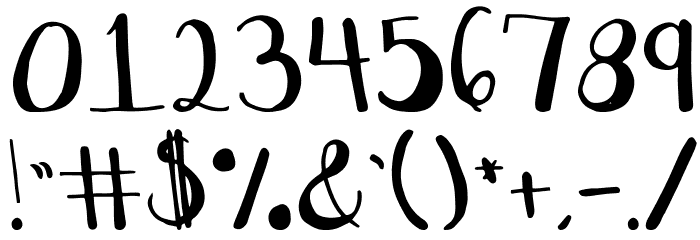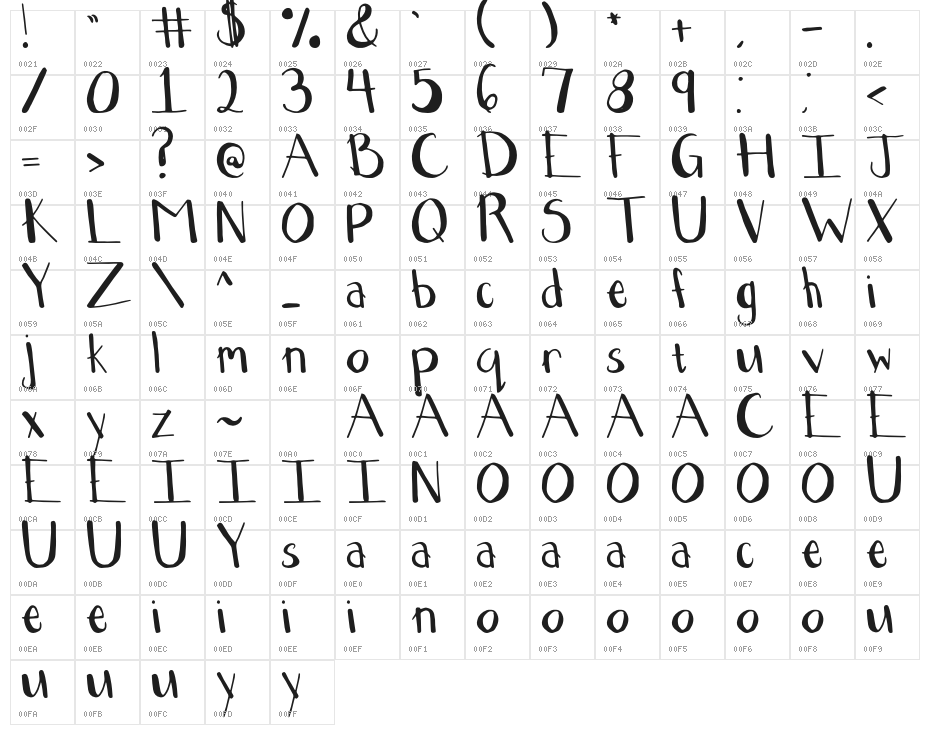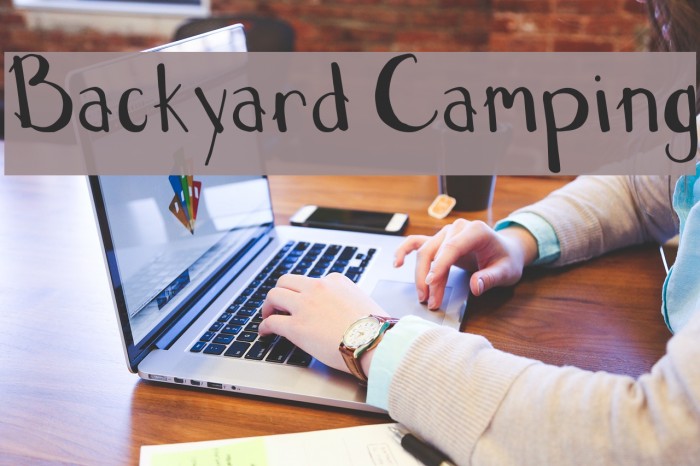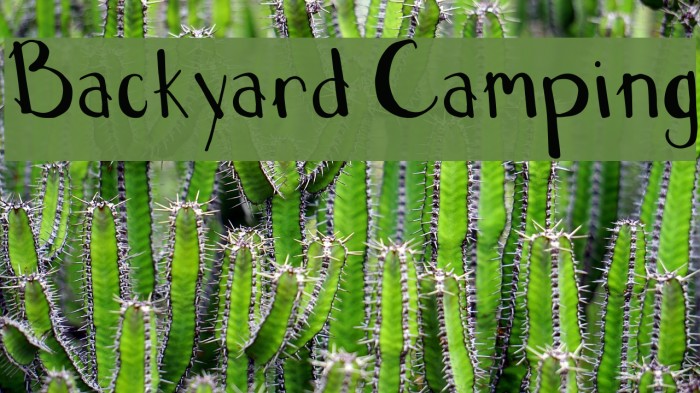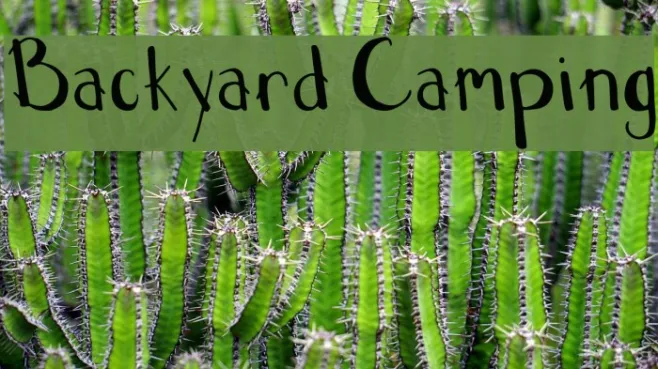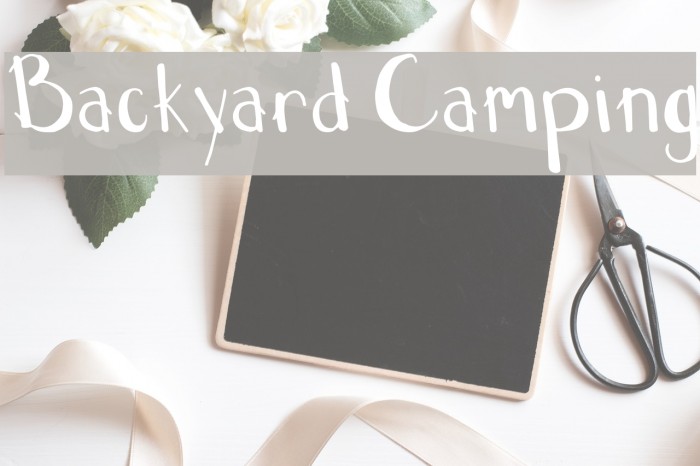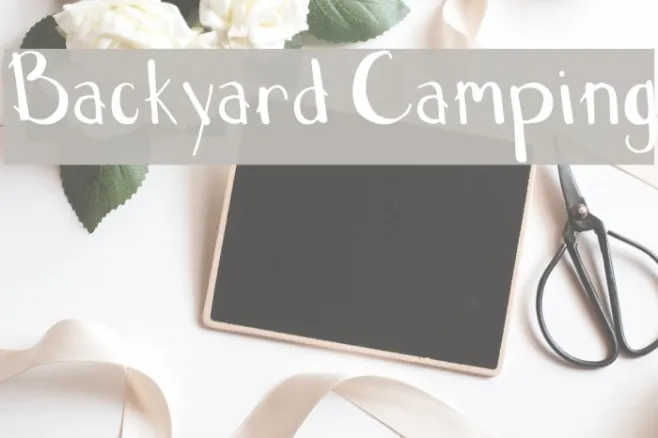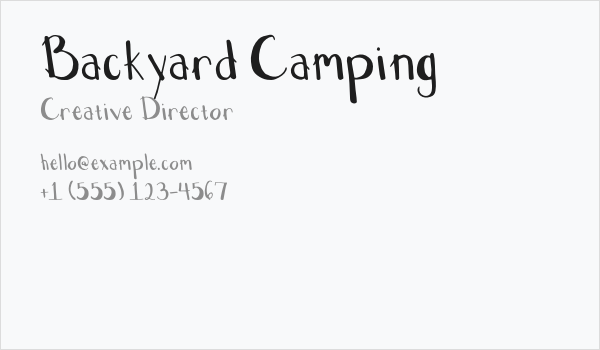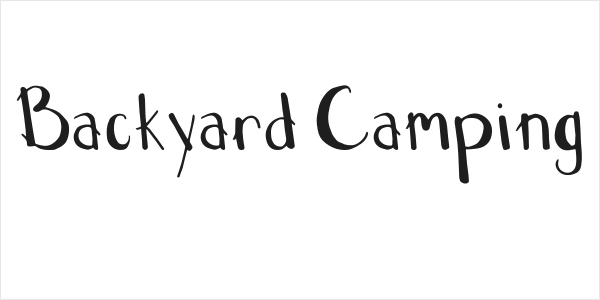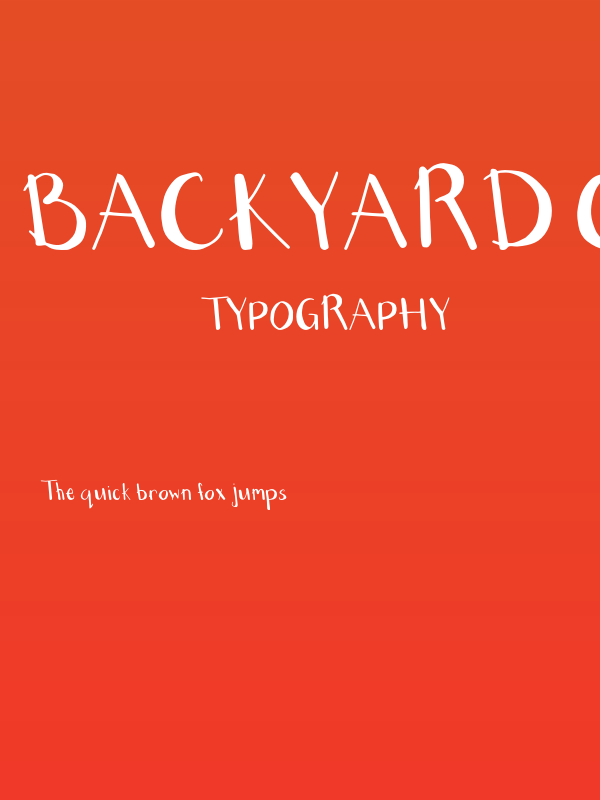
Backyard Camping Font
Backyard Camping Description
This font exudes a playful and casual vibe, reminiscent of handwritten notes or doodles. The characters are uneven and slightly irregular, giving it a charming, informal appearance. The strokes vary in thickness, adding to its whimsical nature. The uppercase letters are bold and distinct, while the lowercase letters maintain a consistent flow, enhancing readability. Numbers and special characters follow the same playful style, making them suitable for creative projects. The overall design is approachable and friendly, perfect for adding a personal touch to any text.
| Proposed Projects | Ideal for children's books, greeting cards, invitations, and creative branding projects. |